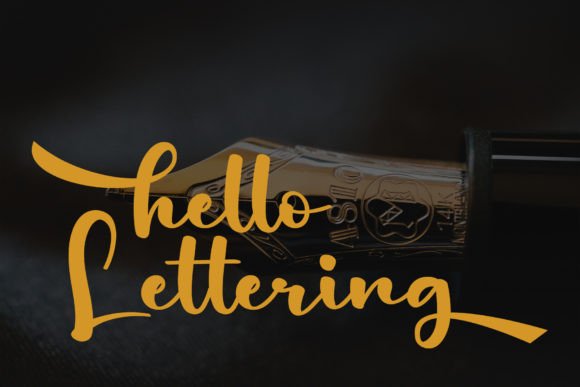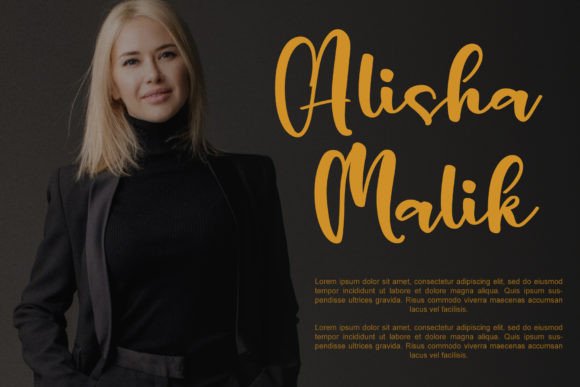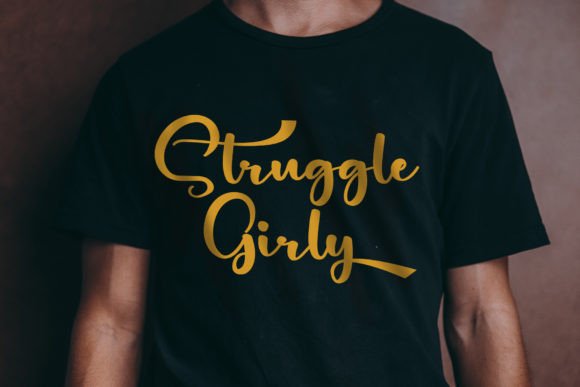
Introduction to Reached Font
Reached is a simple handwritten font created in a random freestyle.
It is suitable for a logotype, headline, corporate identity, brand identity, apparel industry, poster, music, movie, game, magazine, book, comic, cartoon, YouTube, Instagram, website, or any of your creative design projects .
Key Features of Reached Font
Why Choose Reached Font?
Reached Font offers exceptional quality and versatility, making it a valuable addition to your design toolkit. Whether you’re creating for personal projects or commercial use, Reached Font delivers professional results.